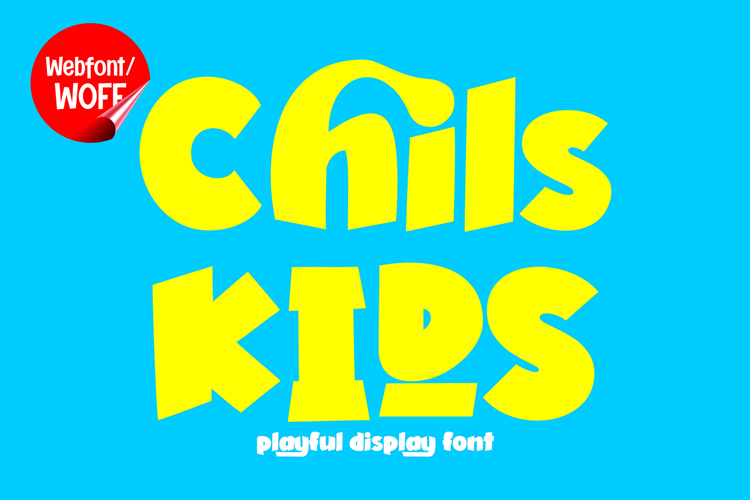
Chil Kids | Webfont Playful Kids Font for Fun Websites
Chil Kids Webfont is a fun and engaging typeface designed specifically for digital environments. With its playful shapes and friendly character, this font is perfect for websites that aim to create a joyful and welcoming experience. Built with web performance in mind, Chil Kids combines visual appeal with technical efficiency, making it an ideal choice for modern web design.
In today’s digital landscape, typography plays a crucial role in capturing user attention. Chil Kids is designed to function as a strong headline font, making it perfect for landing pages, hero sections, banners, and promotional content. Its bold and rounded letterforms instantly draw attention and communicate a sense of fun and creativity.
The webfont includes uppercase and lowercase characters, allowing for flexible and expressive typography. It also features ligatures and stylistic alternates, enabling designers to create unique text combinations that feel natural and dynamic. These features enhance the visual quality of your website and make your content more engaging.
The font is especially suitable for websites targeting children, families, and creative audiences. It works well for educational platforms, kids brands, online stores, blogs, and entertainment websites. Its friendly design helps create a positive emotional connection with users, encouraging them to stay longer and explore more.
One of the strengths of Chil Kids in web design is its ability to balance fun and readability. While the font has a playful personality, it remains clear and legible at larger sizes, making it perfect for headlines and key messaging. Designers can pair it with clean fonts for body text to maintain readability and create a strong visual hierarchy.
Chil Kids also enhances interactive design elements. When combined with animations, hover effects, or scrolling transitions, the font adds a lively and dynamic feel to your website. This makes it particularly effective for modern UI/UX designs that focus on user engagement.
In branding-focused websites, Chil Kids helps establish a unique and memorable identity. It communicates creativity, friendliness, and positivity, making it ideal for brands that want to stand out in competitive markets. Its playful style makes it especially effective for storytelling and visual communication.
Whether you are building a landing page, designing a digital campaign, or creating an online brand presence, Chil Kids Webfont provides the tools you need to make your website visually appealing and engaging.